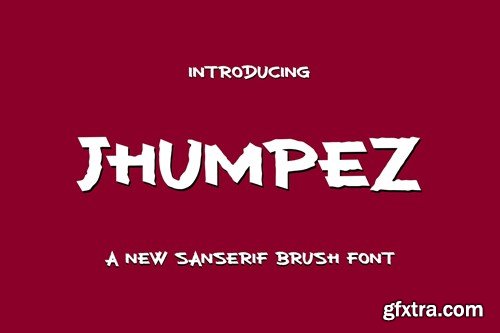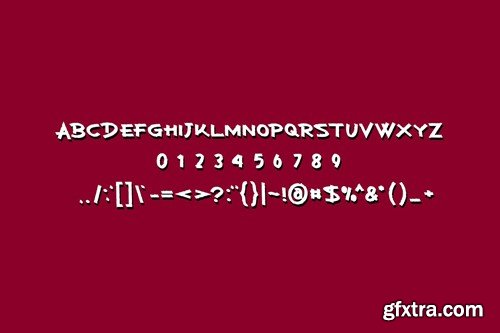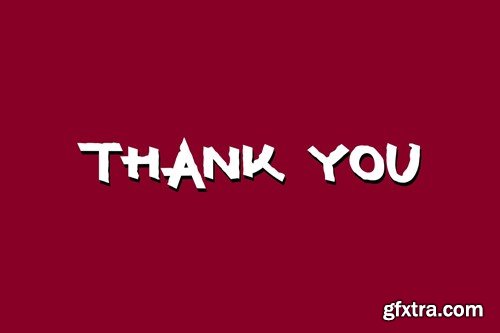
Jhumpez Font EPSGWDQ
Jhumpez Font
Introducing our new product Jhumpez Font
• Very suitable for flyer, posters, novel, letterhead, or any design requirements that you want to be awesome. ____________________________________________________________________________________________